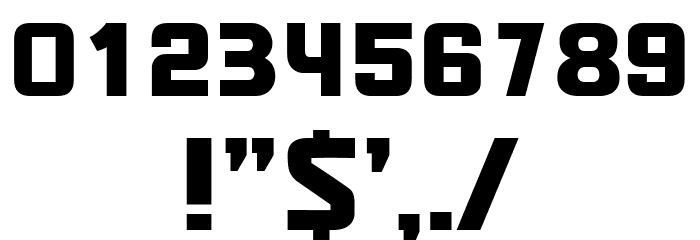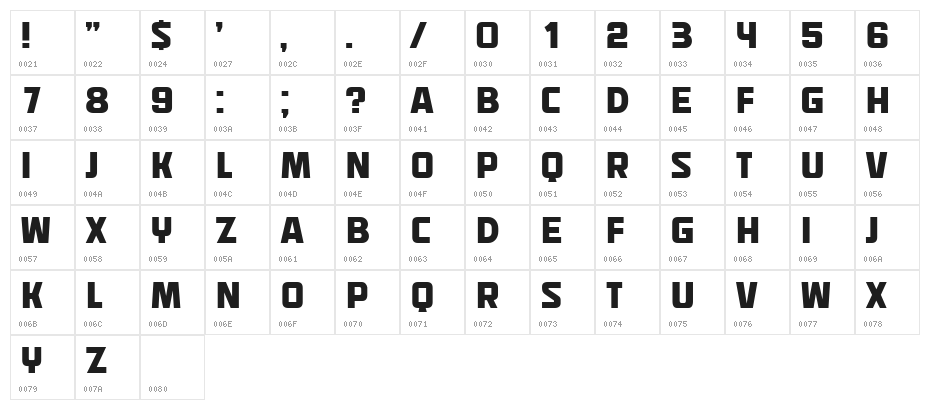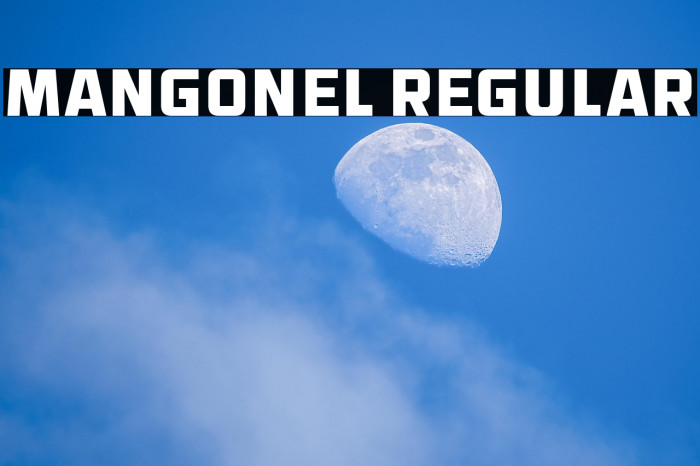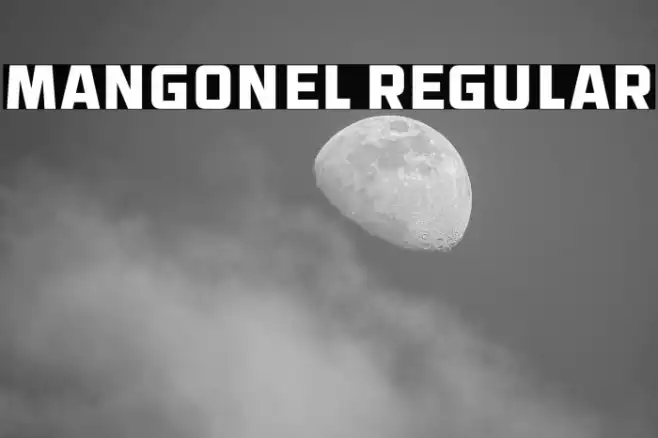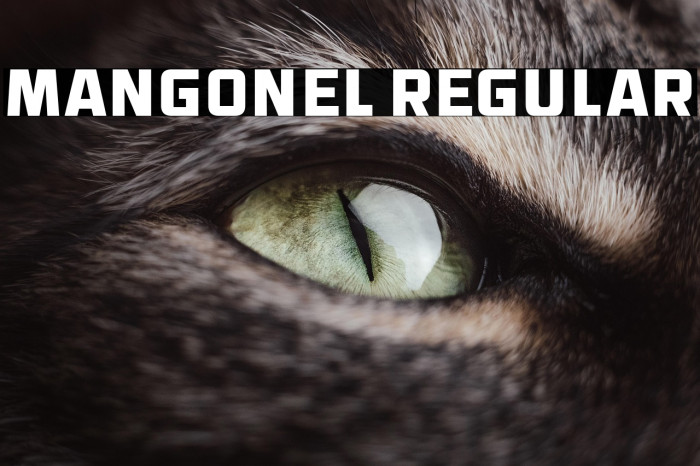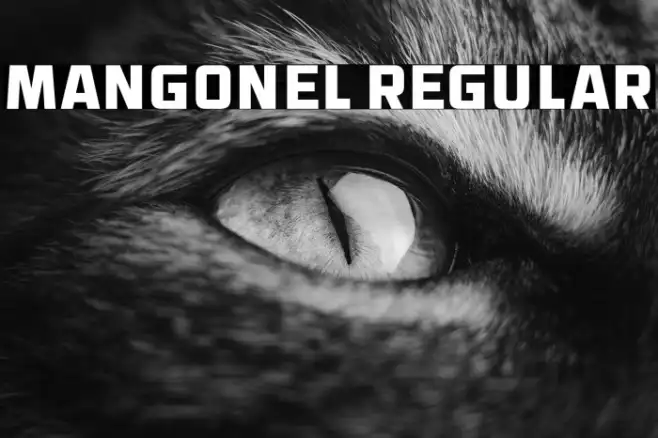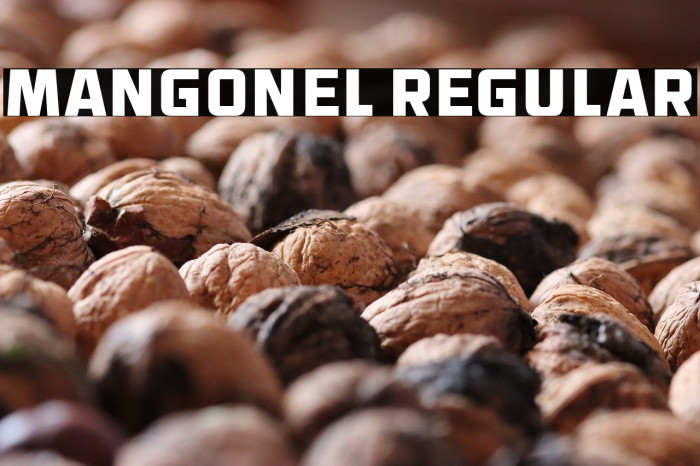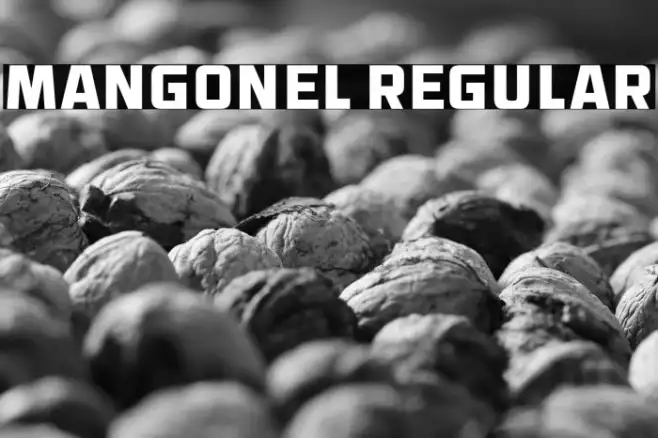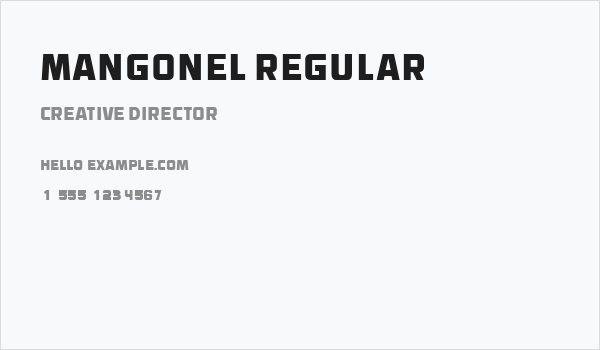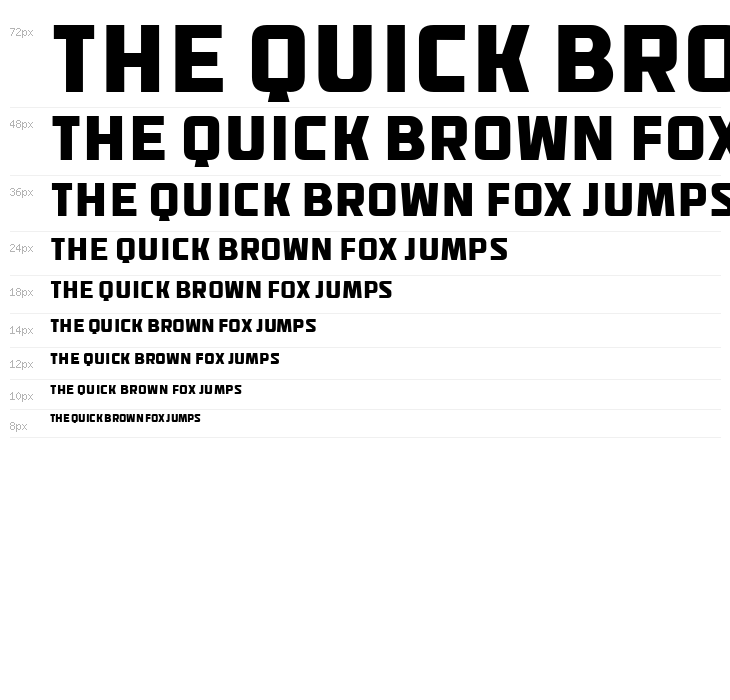
Mangonel Regular Font
Mangonel Regular Description
This font features a bold and robust design with strong geometric shapes and a modern aesthetic. The uppercase and lowercase letters are consistent in their block-like appearance, creating a uniform and cohesive look. The numbers and special characters maintain the same boldness, ensuring readability and impact. The font's clean lines and solid structure make it suitable for various design applications where a strong visual presence is needed.
| Proposed Projects | Ideal for branding, headlines, posters, and signage where a strong and modern look is desired. |